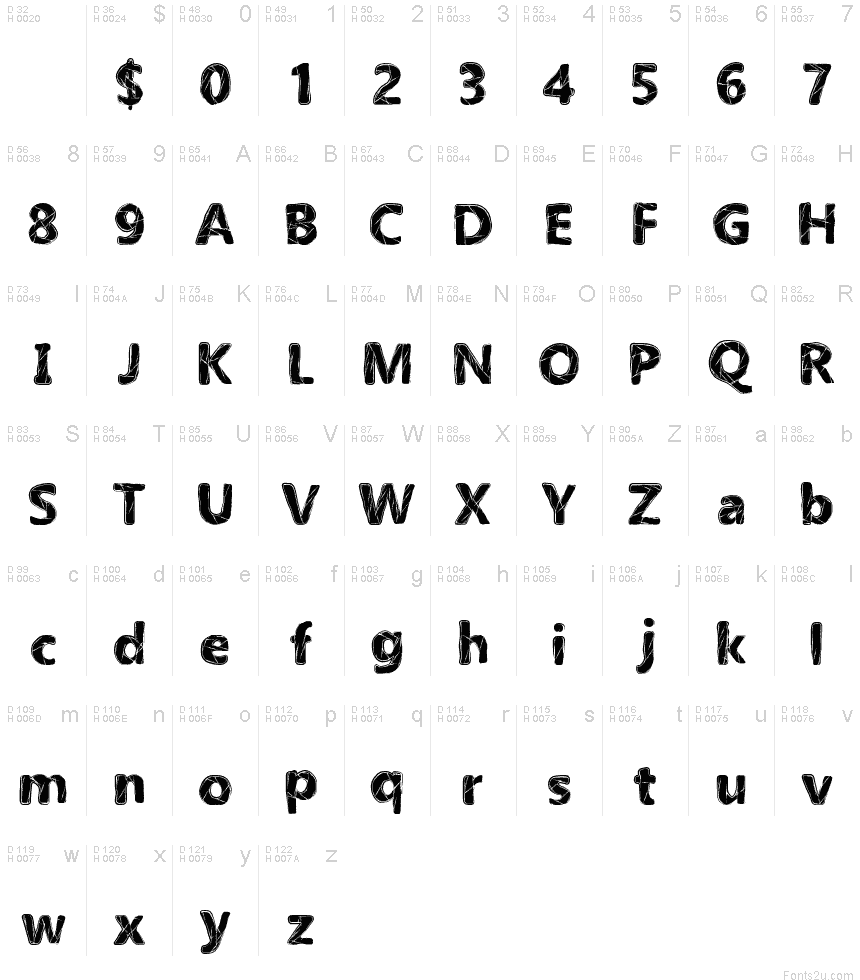
Bolt Light by Xerographer Fonts is a free eroded display font with broad, softly rounded letters and an uneven hand-cut silhouette. Fine scratches crisscross the solid strokes, giving the surface a dry, splintered look rather than a heavy grunge texture.
Independent music and skate audiences are a natural fit. The rough marks suit gig posters, album artwork, streetwear graphics, and event merchandise, where the lettering can echo scratched boards, photocopied artwork, or scuffed print surfaces.